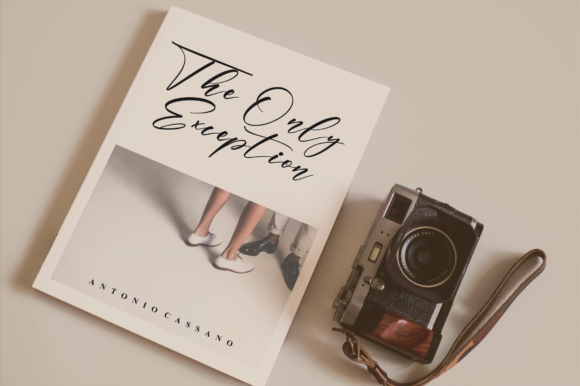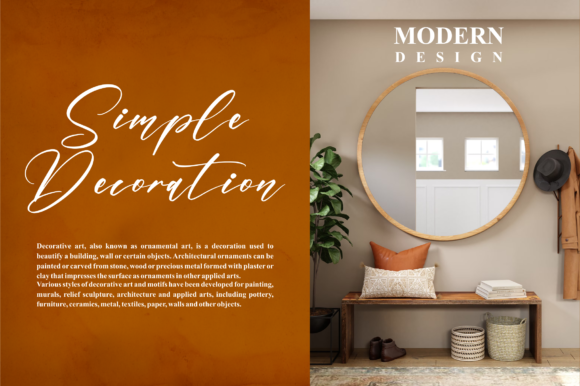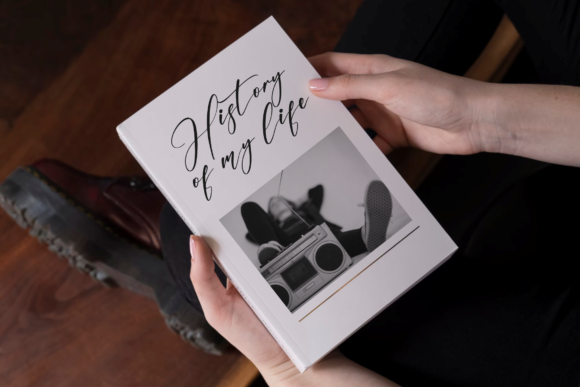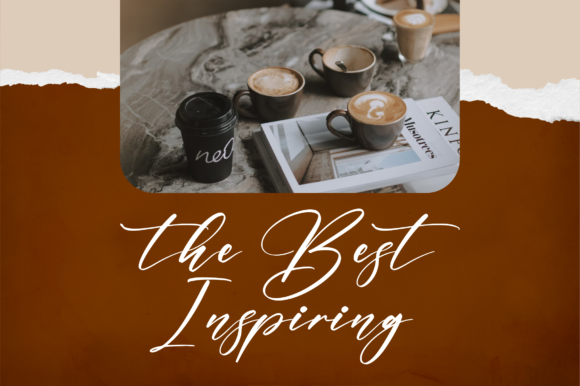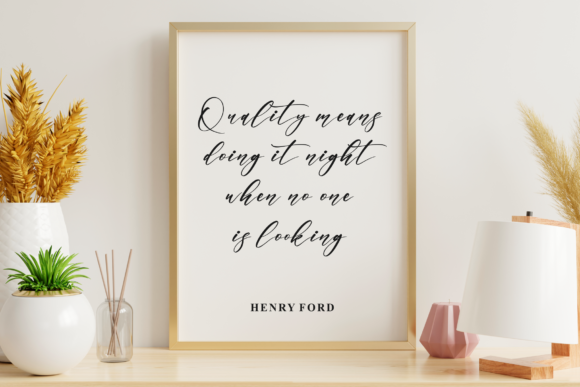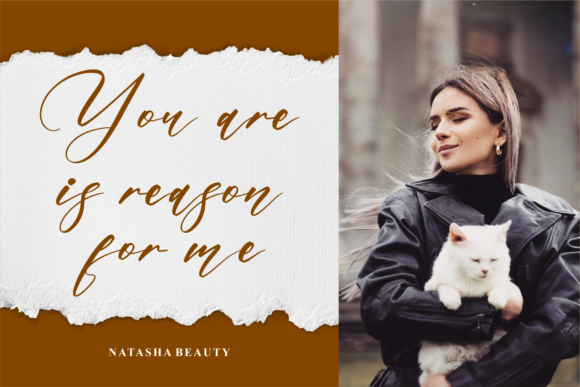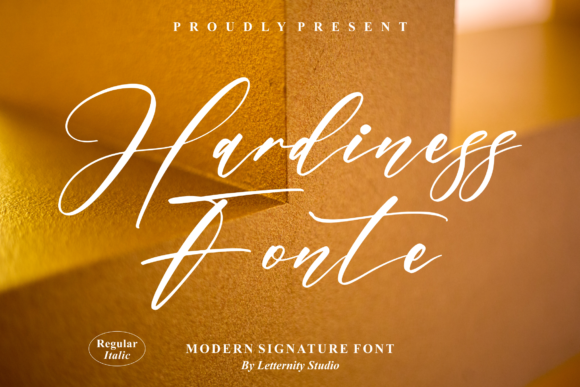
Introducing Hardiness Fonte: The Elegant Script Font for Your Creative Projects
Are you a designer or crafter looking for a font that adds a touch of elegance and sophistication to your creative projects? Look no further than Hardiness Fonte, a beautiful and delicate script font that’s perfect for a variety of designs. From wedding invitations and thank you cards to quotes, greeting cards, logos, and business cards, Hardiness Fonte is the ideal choice for anyone seeking a handwritten touch.
What Makes Hardiness Fonte So Special?
Hardiness Fonte is a fashionable and delicate script font that’s designed to add a touch of whimsy and romance to your designs. Its elegant strokes and beautiful lettering make it perfect for creating stunning visual content that’s sure to capture the attention of your audience. Whether you’re designing for a wedding, a business, or a personal project, Hardiness Fonte is a versatile font that can be used in a variety of contexts.
Wedding designers and event planners, rejoice! Hardiness Fonte is a dream come true for anyone looking to create beautiful and elegant wedding invitations, save-the-dates, and other event-related designs. Its delicate script and romantic feel make it perfect for creating a warm and inviting atmosphere that’s sure to set the tone for a special day.
Great for Crafters and DIY Enthusiasts
If you’re a crafter or DIY enthusiast, you’ll love Hardiness Fonte for all your project needs. From handmade cards and gift tags to journaling and scrapbooking, this font is perfect for adding a personal touch to your creations. Its elegant script and delicate feel make it ideal for creating beautiful and unique designs that showcase your creativity.
Key Features of Hardiness Fonte
• Elegant script font: Hardiness Fonte is a beautiful and delicate script font that’s perfect for adding a touch of sophistication to your designs.
• Delicate strokes: The font features delicate strokes and beautiful lettering that make it perfect for creating stunning visual content.
• Versatile: Hardiness Fonte can be used in a variety of contexts, from wedding and event designs to business and personal projects.
• Handwritten touch: The font adds a handwritten touch to your designs, making them look more personal and unique.
How to Use Hardiness Fonte in Your Designs
• Pair it with a sans-serif font: Pair Hardiness Fonte with a sans-serif font, such as Arial or Helvetica, to create a beautiful contrast.
• Use it for headings and titles: Use Hardiness Fonte for headings and titles to add a touch of elegance to your designs.
• Experiment with colors: Experiment with different colors and textures to add depth and interest to your designs.
Hardiness Fonte is a beautiful and elegant script font that’s perfect for designers and crafters looking to add a touch of sophistication to their creative projects. Its delicate strokes, elegant lettering, and versatile nature make it ideal for a variety of designs, from wedding invitations and event designs to business and personal projects. Download Hardiness Fonte today and start creating stunning visual content that’s sure to capture the attention of your audience!